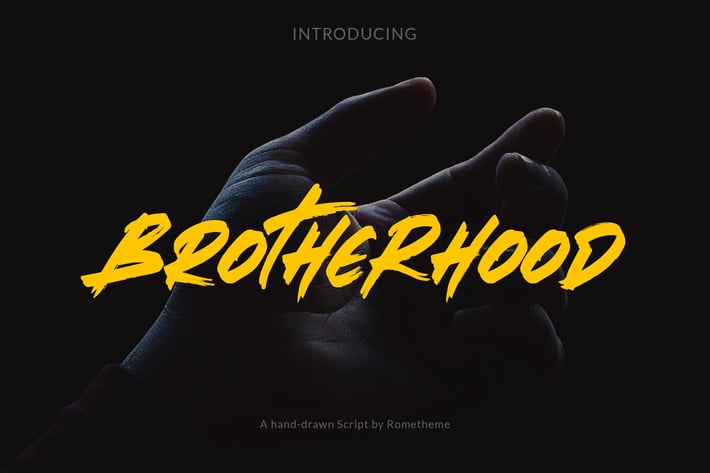
Brotherhood - Brush Script Font
Brotherhood is a modern, hand-drawn typeface. It has a elegant, classy look. Itβs a great
font for fashion, apparel projects, signature, album cover, logo, branding, magazine, social
media, & advertisements, but also works great for other projects.
- The perfect font choice for powerful projects - watermarks, signatures,
photography, logos, business cards, quotes, album covers.